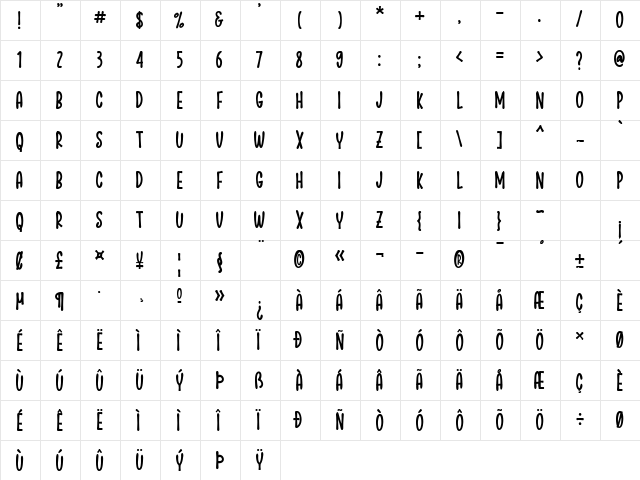
Flower Mager Regular
| Designer | Toni Dzulham |
Design Context for Flower Mager Regular Typeface
Flower Mager Regular offers clean, dependable letterforms without strong stylistic allegiance, making it a practical choice for designers who need flexibility.